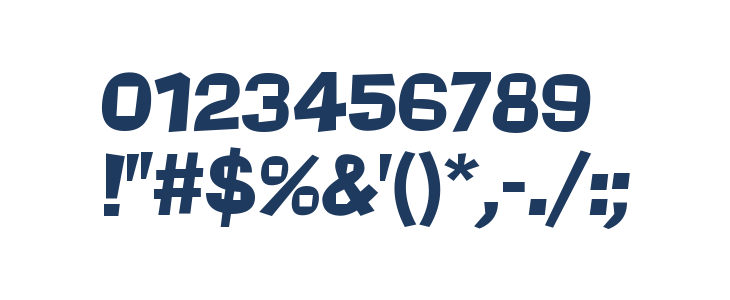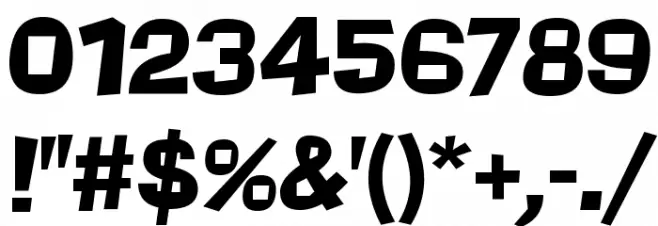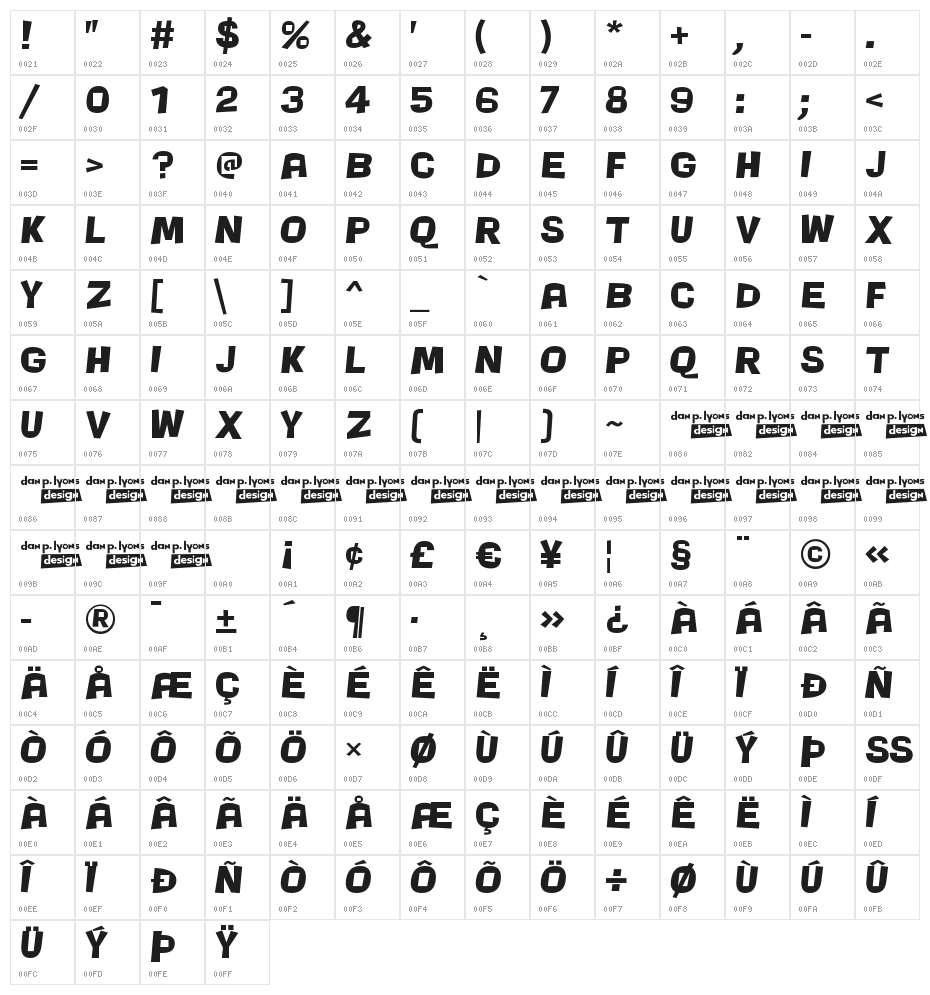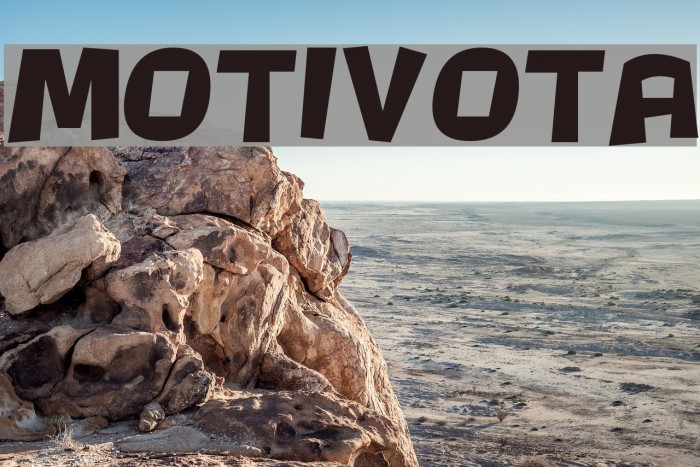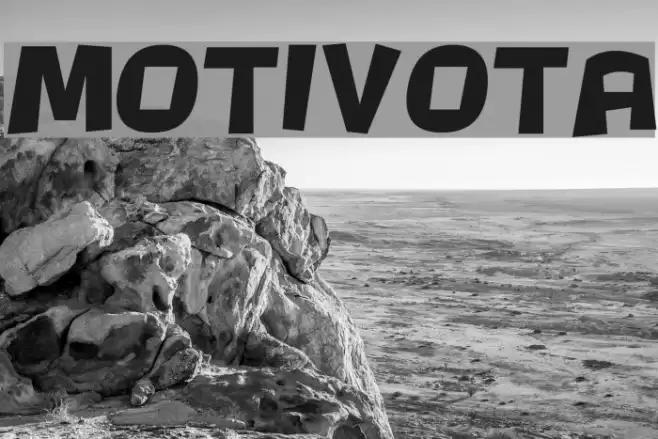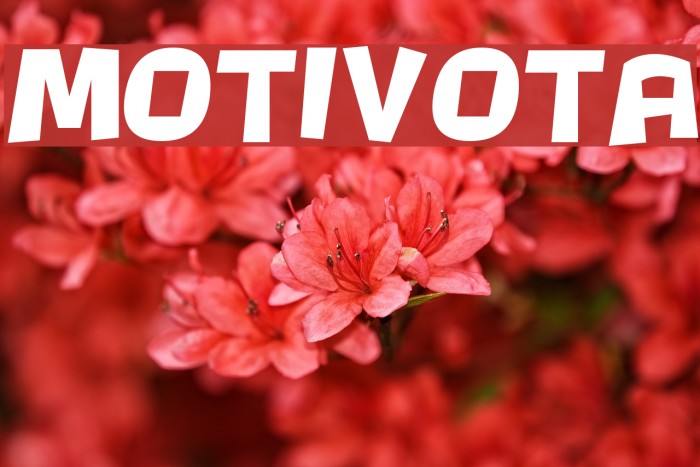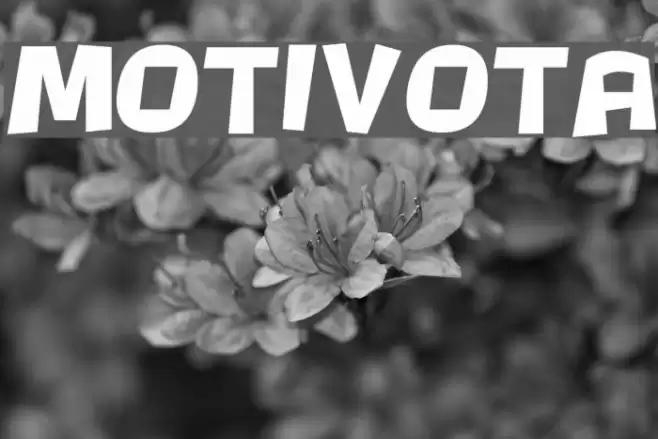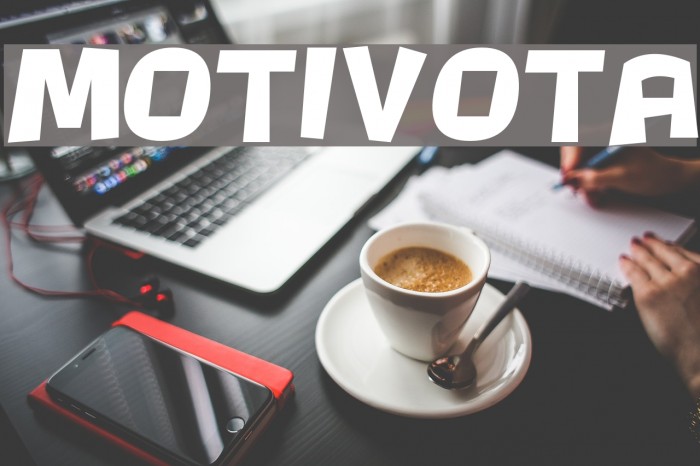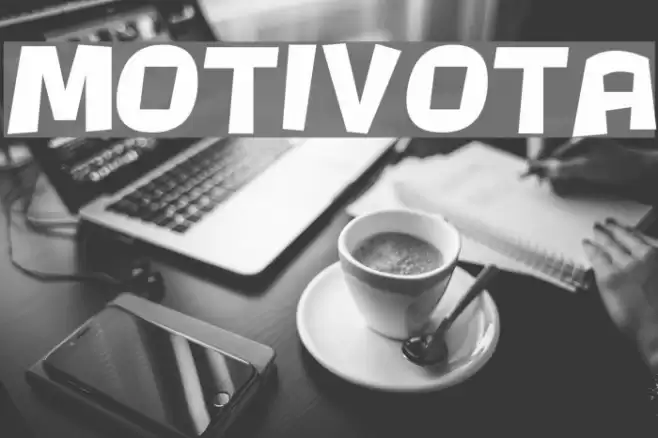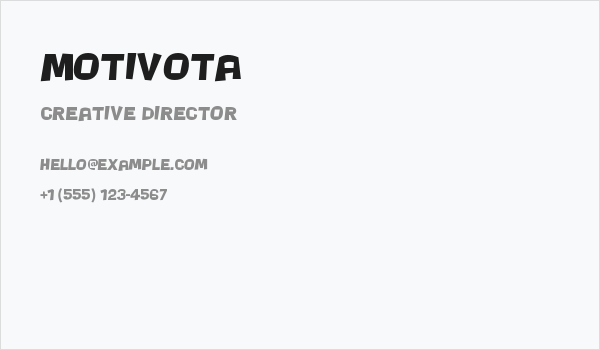
Motivota Font
Motivota Description
This font features a bold and dynamic style with a slightly italicized slant, giving it a sense of movement and energy. The characters are robust and impactful, with a strong presence that makes them ideal for attention-grabbing designs. The strokes are consistent in thickness, providing a uniform appearance across all characters. The font includes a full set of uppercase and lowercase letters, numerals, and a variety of special characters, making it versatile for various design needs. Its boldness and slight slant make it particularly suitable for projects that require a modern and energetic aesthetic.
| Proposed Projects | Ideal for sports branding, event posters, dynamic logos, and modern advertising campaigns. |